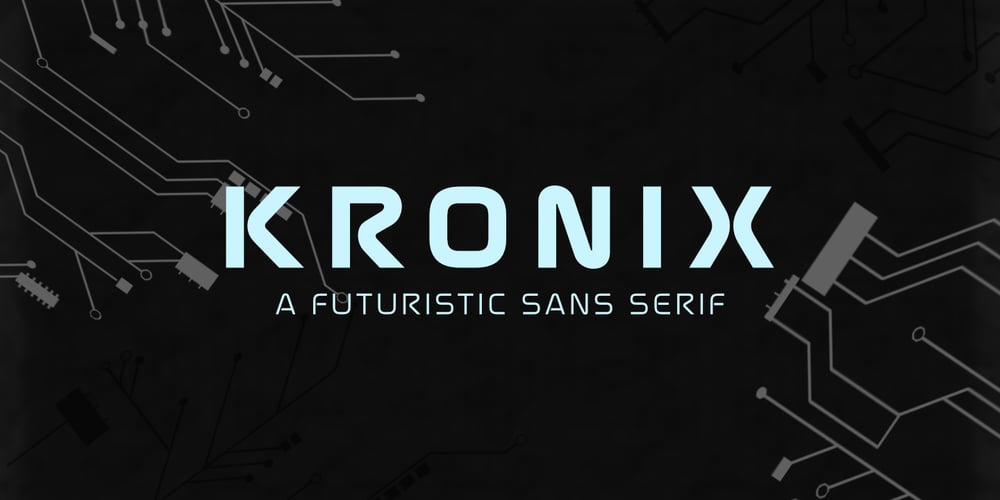
Kronix Font Family was designed by Muhammad Hastian and published by Hazztype. Kronix contains 5 styles and family package options. Introducing Kronix, a geometric, futuristic font that embodies the essence of technology in the digital age. Kronix combines sleek lines, precise angles, and contemporary design elements to create a visually striking font perfect for technology-themed projects. Its clean and minimalist letterforms embody the essence of modernity and sophistication, capturing the attention of tech-savvy audiences. With its crisp edges and precise spacing, this font creates a harmonious visual rhythm that adds a touch of elegance to any design. Kronix is versatile and adaptable, making it suitable for a wide range of applications, including websites, mobile apps, and branding materials. Its modern aesthetic aligns perfectly with the fast-paced advancements in technology, allowing your design to stay relevant and visually impactful. Whether you’re designing a tech magazine cover, creating a sci-fi movie poster, or developing a high-tech product packaging, Kronix is the ultimate choice for adding a geometric, futuristic flair that captivates the imagination and elevates your design to the forefront of modern technology.